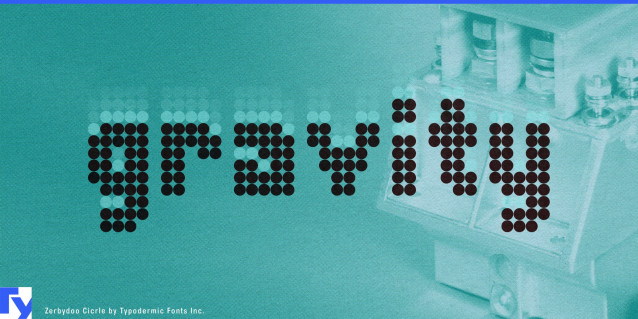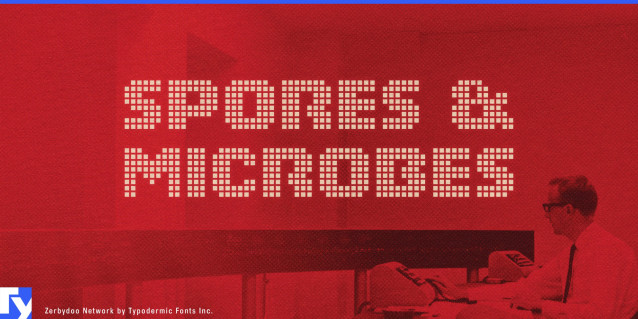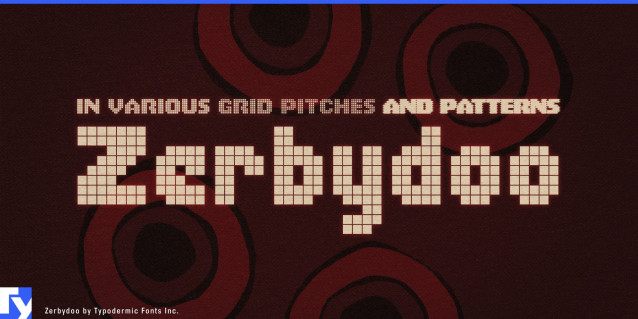
Zerbydoo Font
Zerbydoo is a typeface built on grids, lattices, and networks—letterforms assembled from repeating modules that look equally at home under a microscope or on a circuit board. Instead of leaning on nostalgia, it opens a space where digital structure and organic growth overlap.
With its pixel-block architecture, Zerbydoo thrives in projects that need a sense of pattern and system: motion graphics that pulse like LEDs, indie game title screens that snap into place, and electronic music posters vibrating with modular energy. Its forms scale from bold headlines to intricate lattices, making it as useful for a science museum exhibit about microbiology as it is for packaging modular synth gear.
Multiple grid variations give you control over density and rhythm, while full character support ensures your message connects across languages. Zerbydoo is a toolkit for designers who want to build messages out of structure itself—whether for a cyberpunk book cover, a hackathon identity, or a biotech brand on the edge of discovery.